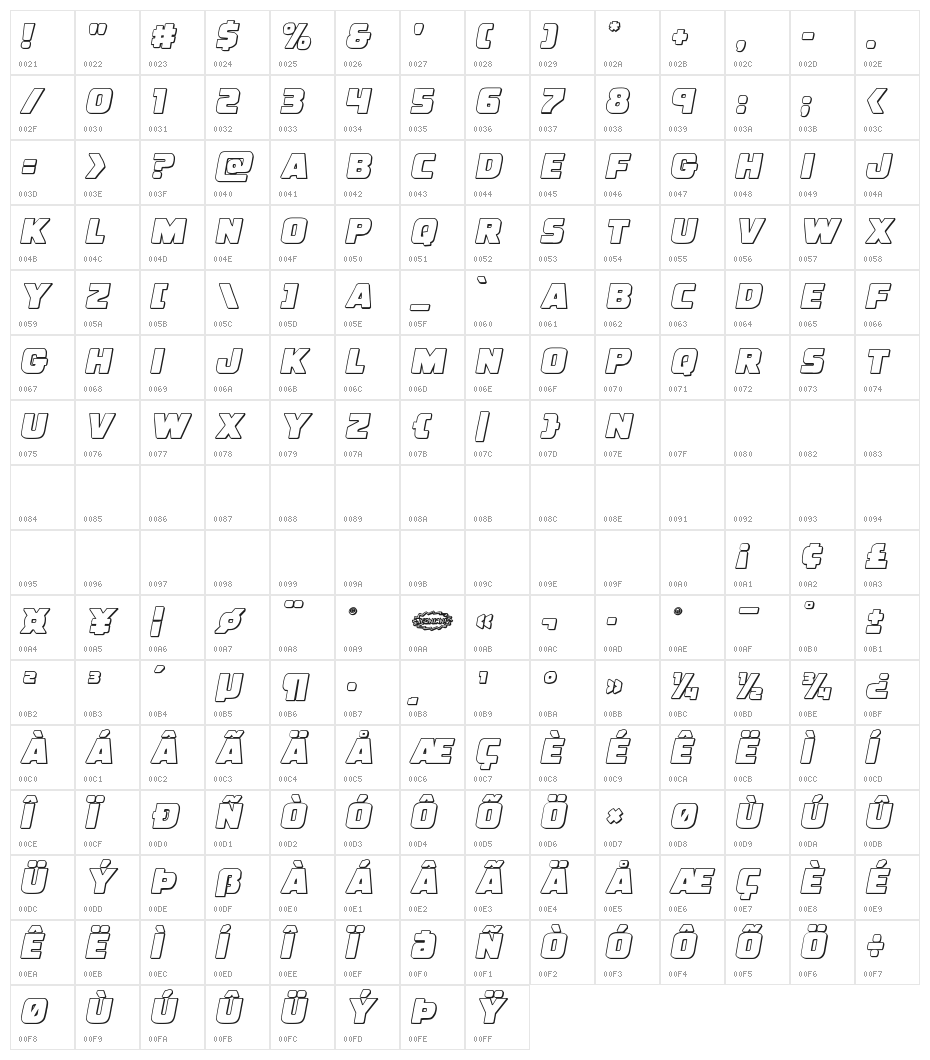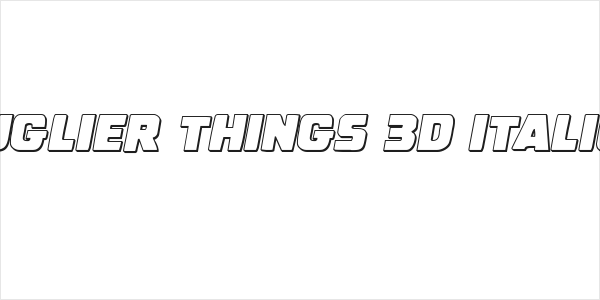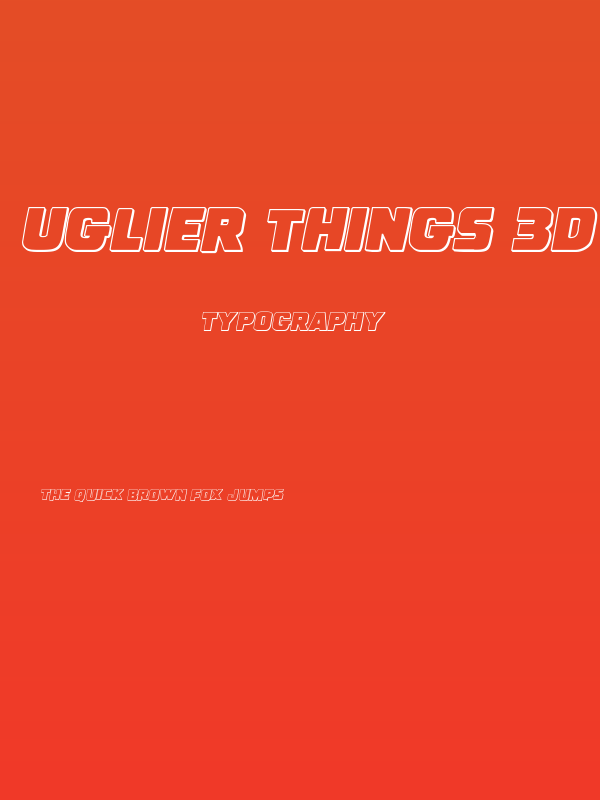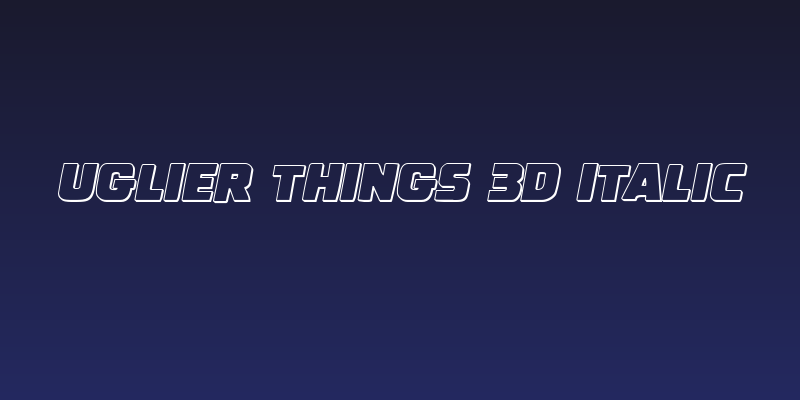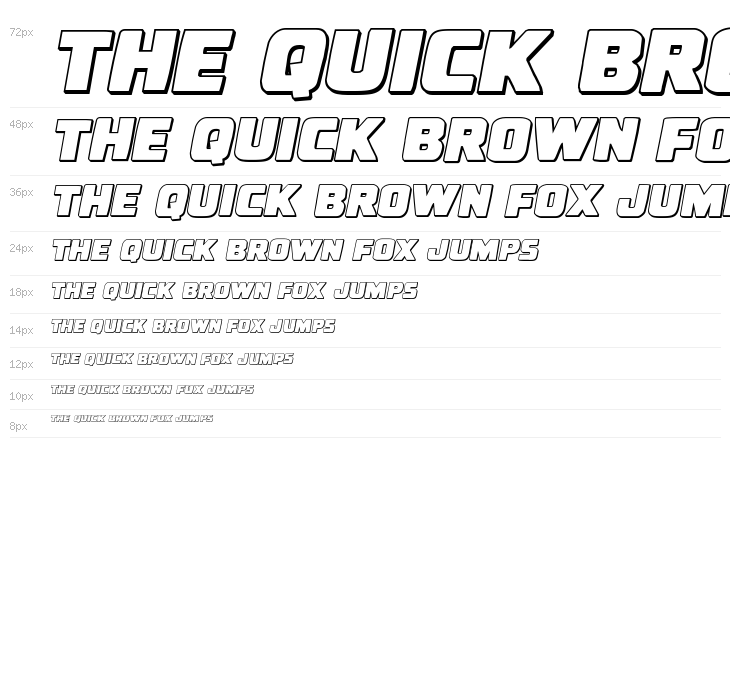
Uglier Things 3D Italic Font
Uglier Things 3D Italic Description
This font features a bold, three-dimensional appearance with a distinct italic slant, giving it a dynamic and modern look. The characters are outlined, creating a hollow effect that enhances its 3D style. The uppercase and lowercase letters maintain a consistent design, with sharp angles and clean lines. The numerals and special characters follow the same stylistic approach, ensuring uniformity across all glyphs. This font's unique style makes it stand out, ideal for projects that require a bold statement.
Proposed ProjectsIdeal for eye-catching headlines, posters, logos, and branding materials that require a bold and modern aesthetic.